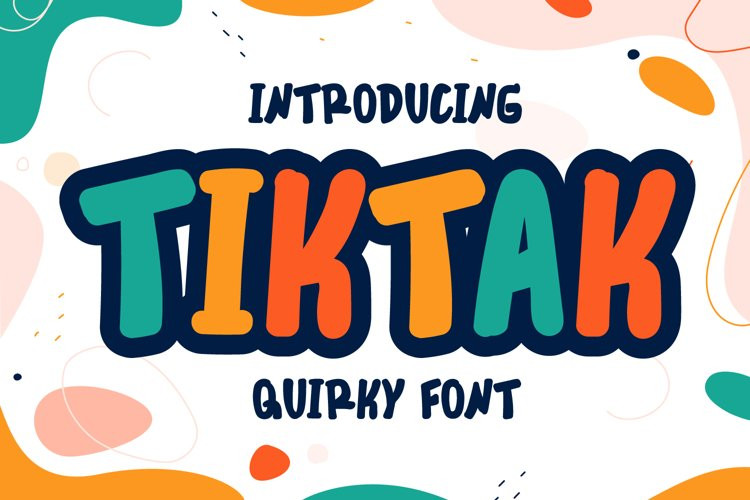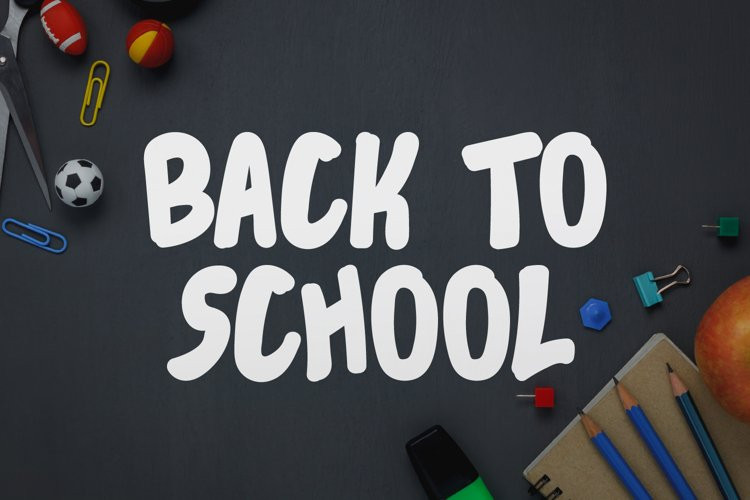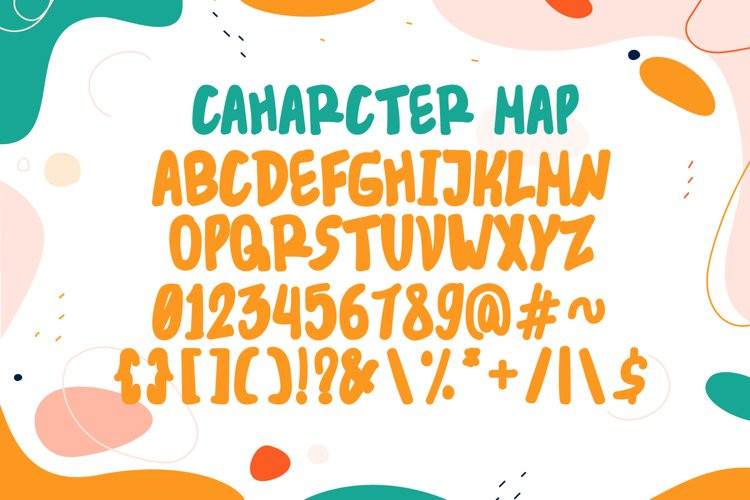
Tik Tak Font
Tik Tak FontTik Tak is a bold marker themed display font.
Tik Tak is perfect for posters, t-shirts, book covers, packaging, stickers, quotes and all cute, fat and adorable themed designs.